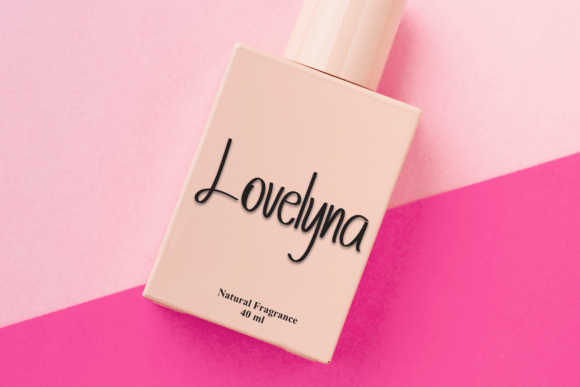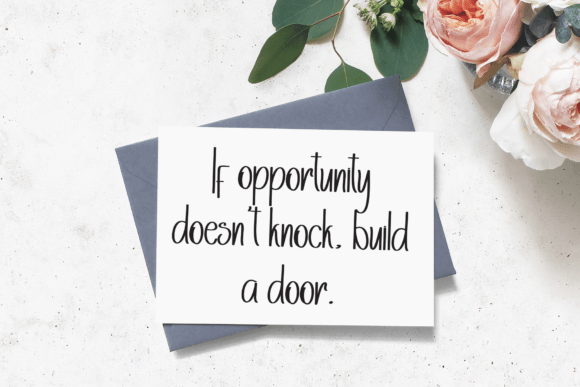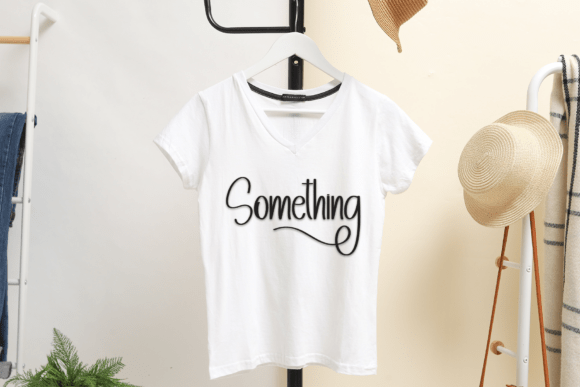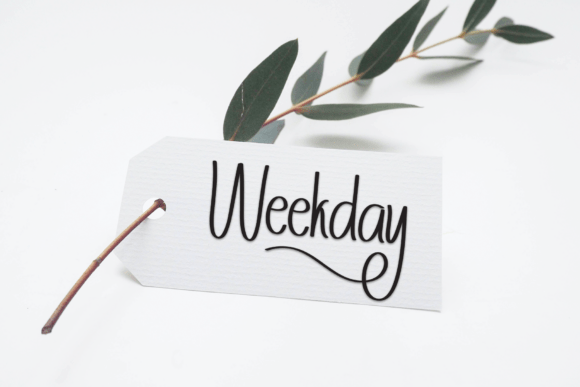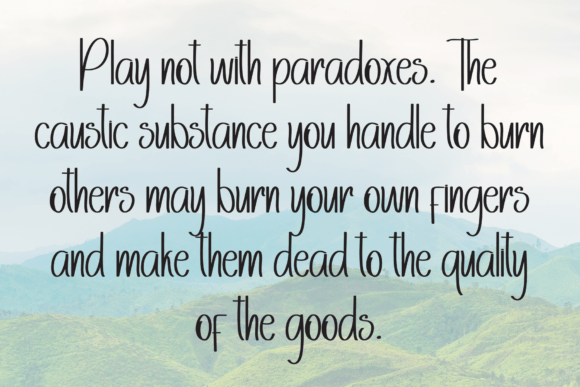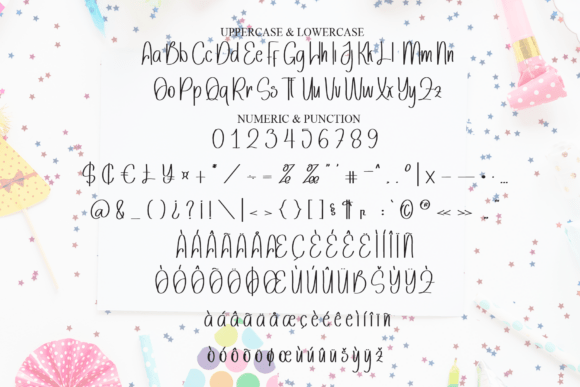
Introducing Birthday Font: The Perfect Blend of Warmth and Clarity
Are you tired of using fonts that are too formal or too dull for your designs? Look no further than Birthday Font, a casual and neat display font that’s designed to bring warmth and clarity to your projects. With its clean structure and approachable style, Birthday Font is perfect for branding, headlines, and everyday designs that need a personal touch.
What Makes Birthday Font Special?
Birthday Font is more than just a font – it’s a way to add personality and charm to your designs. Its balanced letterforms offer readability and charm, making every message feel genuine and inviting. Whether you’re designing a logo, a brochure, or a social media post, Birthday Font is the perfect choice for designers and crafters who want to create a lasting impression.
- Clean Structure: Birthday Font has a clean and simple structure that makes it easy to read and understand.
- Approachable Style: The font has an approachable style that makes it perfect for designs that need a personal touch.
- Balanced Letterforms: The letterforms are balanced and harmonious, making every message feel genuine and inviting.
- Readability: The font is highly readable, even at small sizes, making it perfect for a variety of design applications.
- Charm: Birthday Font has a unique charm that sets it apart from other fonts and makes it perfect for designs that need a little extra personality.
Uses for Birthday Font
Birthday Font is a versatile font that can be used for a variety of design applications, including:
- Branding: Use Birthday Font to create a logo or brand identity that’s warm, inviting, and memorable.
- Headlines: Use Birthday Font to create headlines that grab attention and add a personal touch to your designs.
- Everyday Designs: Use Birthday Font for everyday designs, such as social media posts, flyers, and brochures, to add a touch of warmth and personality.
- Crafting: Birthday Font is perfect for crafters who want to add a personal touch to their projects, such as handmade cards, scrapbooking, and DIY projects.
Why Designers and Crafters Love Birthday Font
Designers and crafters love Birthday Font for its unique blend of warmth, clarity, and charm. Here are just a few reasons why:
- Easy to Read: Birthday Font is highly readable, even at small sizes, making it perfect for a variety of design applications.
- Versatile: Birthday Font can be used for a variety of design applications, from branding to crafting.
- Unique: Birthday Font has a unique charm that sets it apart from other fonts and makes it perfect for designs that need a little extra personality.
- High-Quality: Birthday Font is a high-quality font that’s designed to deliver exceptional results.
In conclusion, Birthday Font is a casual and neat display font that’s perfect for designers and crafters who want to add warmth and clarity to their projects. With its clean structure, approachable style, and balanced letterforms, Birthday Font is the perfect choice for branding, headlines, and everyday designs. Whether you’re a designer or crafter, Birthday Font is a must-have font that will take your designs to the next level.